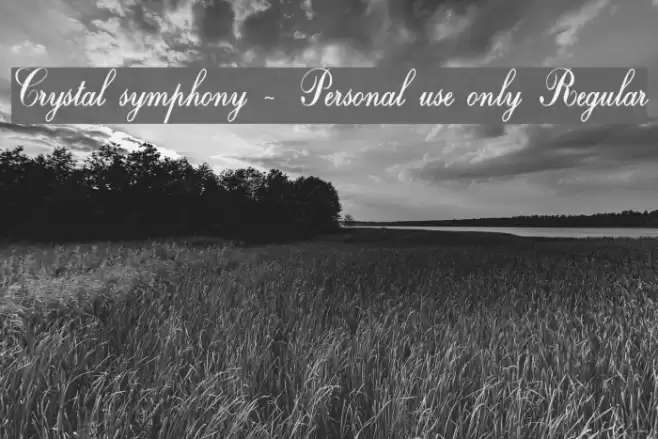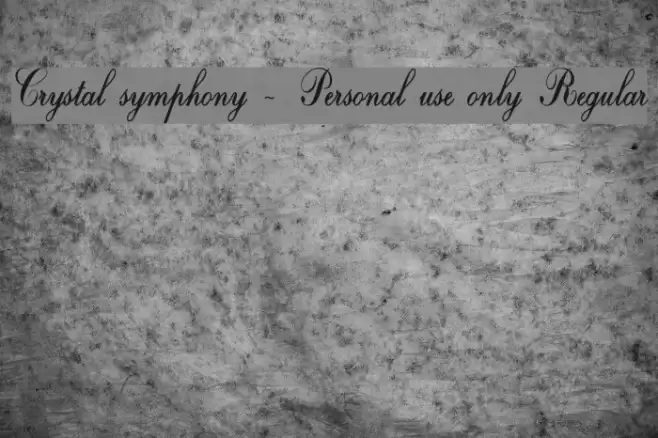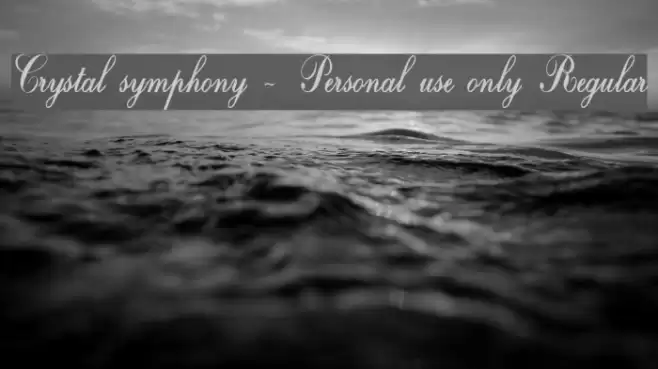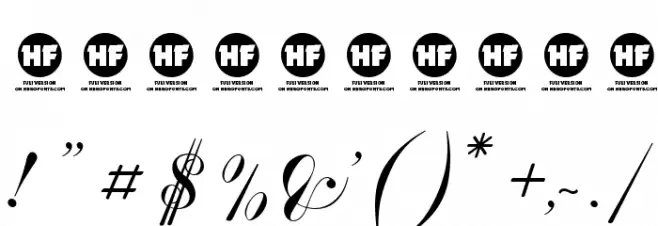
Crystal symphony - Personal use only Regular Font
This elegant script font features a flowing, cursive style with intricate loops and swashes. The uppercase letters are ornate, with a classic calligraphic influence, while the lowercase letters maintain a smooth, connected appearance. The font exudes sophistication and is reminiscent of traditional handwriting, making it ideal for formal invitations and decorative purposes. The numerals and special characters are designed to complement the overall aesthetic, ensuring a cohesive look across all text elements.
An elegant script font with flowing, cursive style and intricate loops from Uncategorized fonts.
- Proposed Projects: Ideal for wedding invitations, greeting cards, elegant branding, and decorative signage.
- Overall Style: Classic
- Use Case: Logos, Invitations, Decorative text